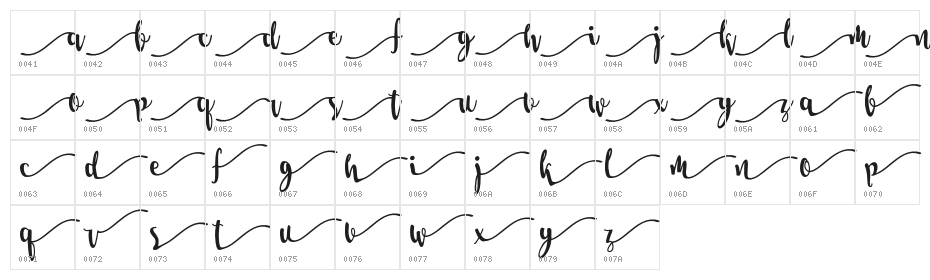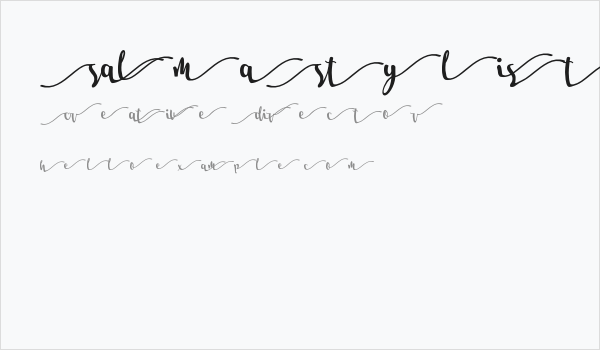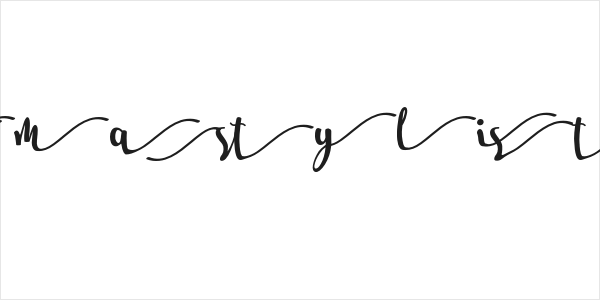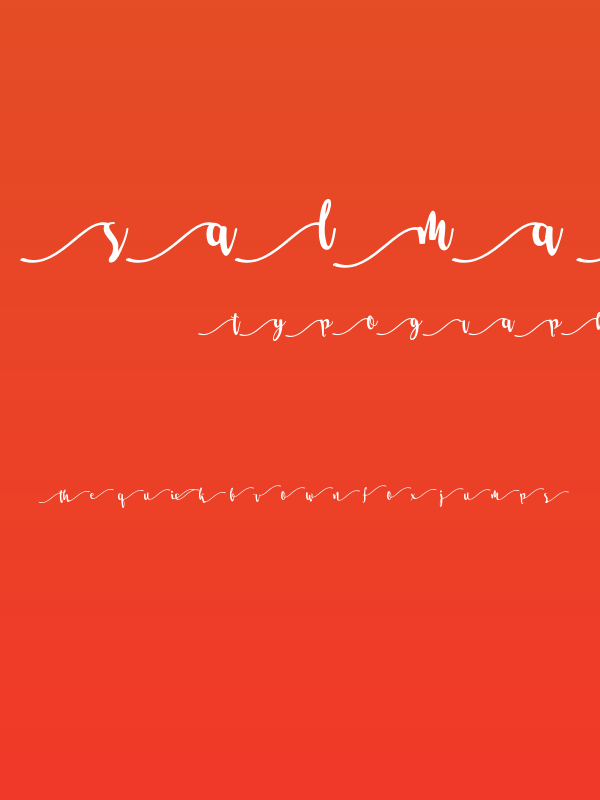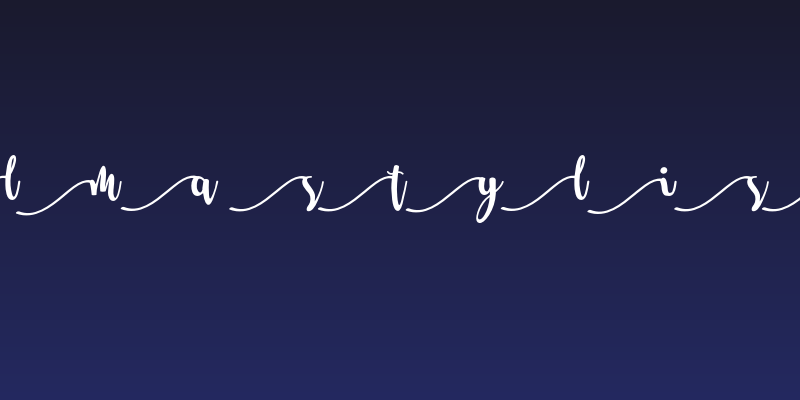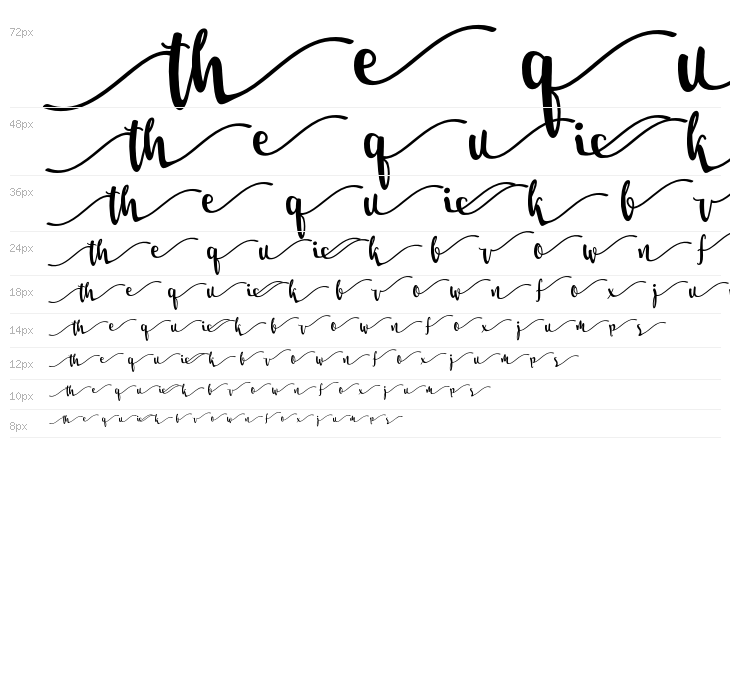
Salma Stylistic 1 Font
Salma Stylistic 1 Description
This font features an elegant and flowing script style, characterized by its graceful, sweeping curves and delicate strokes. Each letter is intricately designed with a sense of fluidity, creating a harmonious and sophisticated appearance. The font maintains a consistent baseline, while the ascenders and descenders extend with artistic flair, adding to its decorative appeal. The overall design is reminiscent of traditional calligraphy, yet it incorporates modern elements that make it suitable for contemporary use. The font's unique style is perfect for adding a touch of elegance and personality to any project.
| Proposed Projects | Ideal for wedding invitations, greeting cards, branding, and any project requiring a touch of elegance and sophistication. |